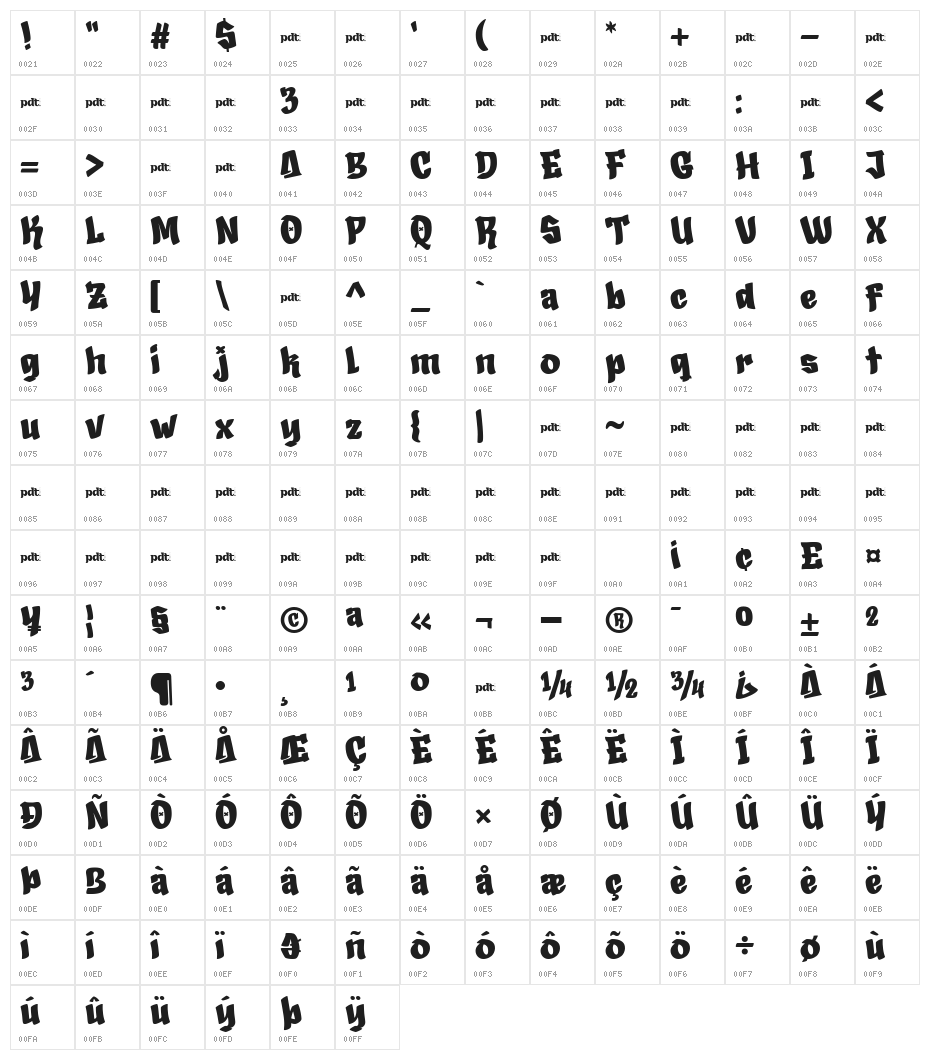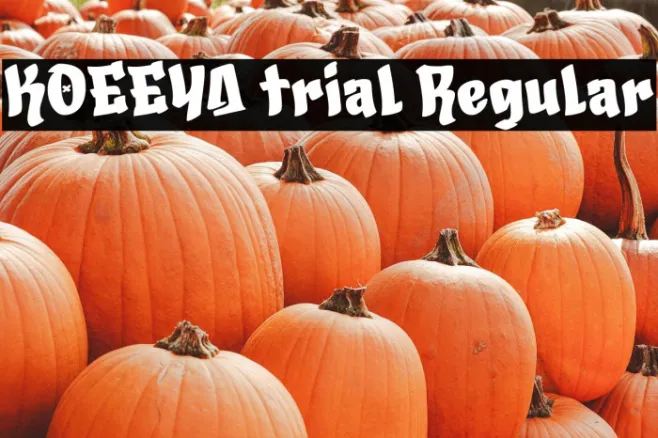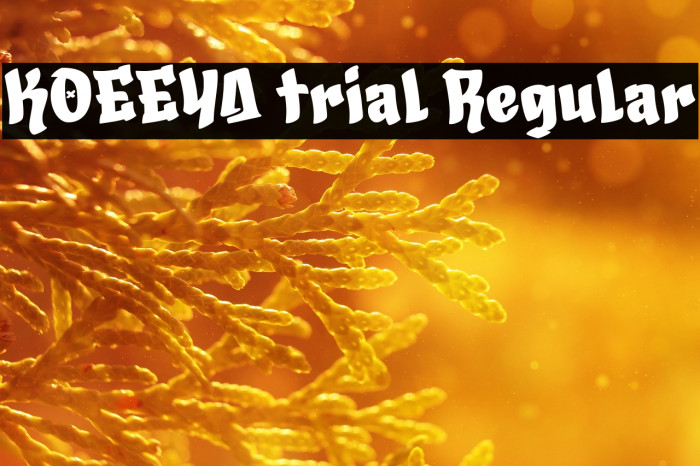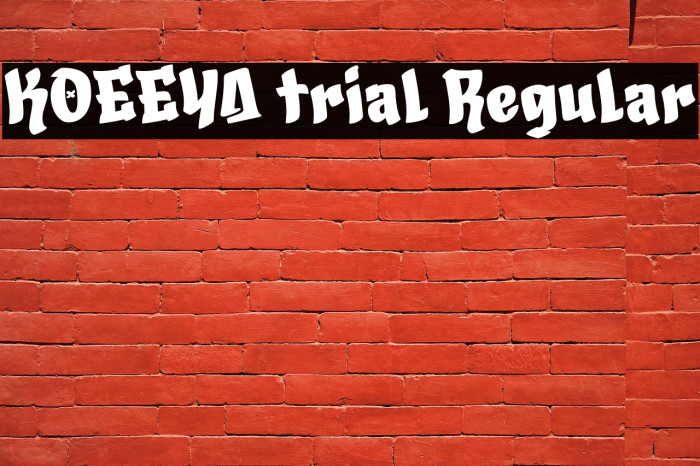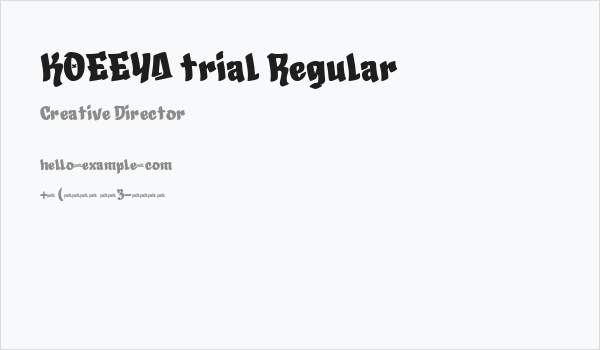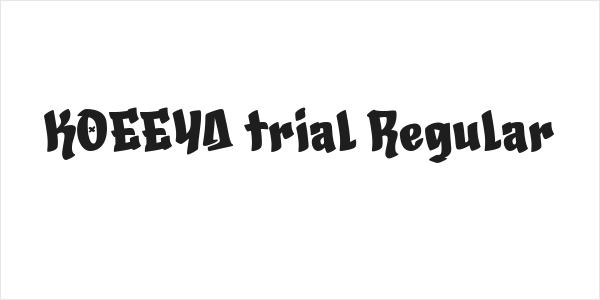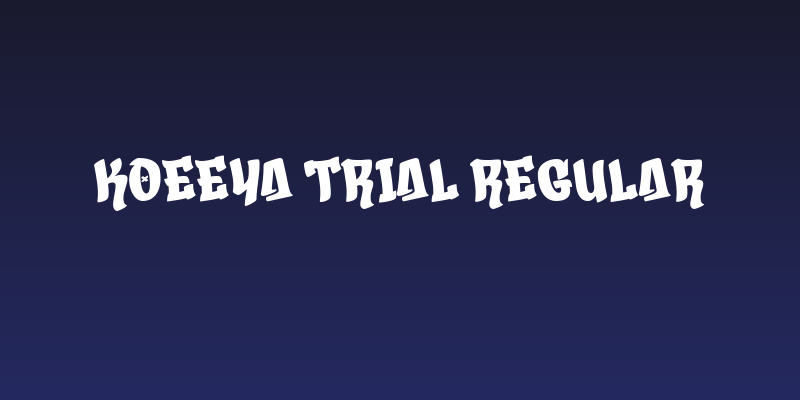
KOEEYA trial Regular Font
KOEEYA trial Regular Description
This font features a bold, decorative style with a unique flair that combines elements of traditional blackletter and modern design. The uppercase letters are characterized by sharp, angular lines and distinctive embellishments, while the lowercase letters maintain a consistent style with slightly softer curves. The numbers and special characters follow the same bold and decorative theme, making them stand out. The font's overall appearance is striking and attention-grabbing, suitable for projects that require a strong visual impact.
| Proposed Projects | Ideal for posters, album covers, branding, and any design requiring a bold, eye-catching typeface. |